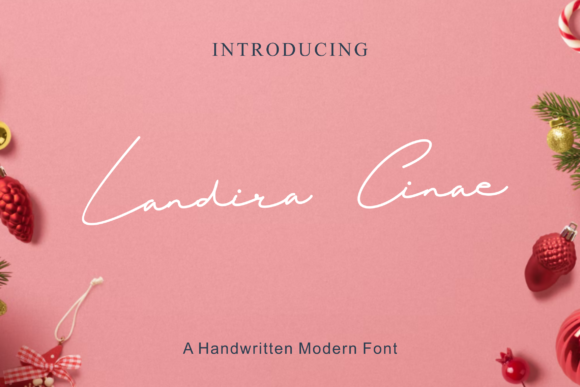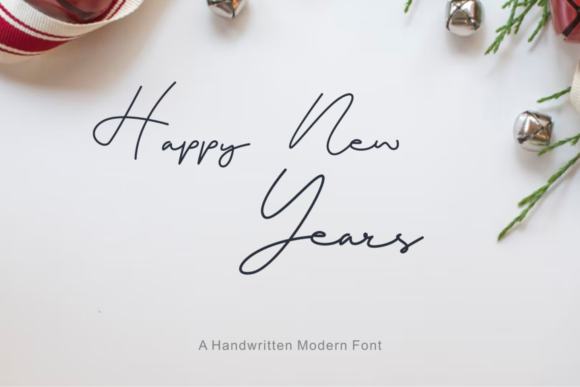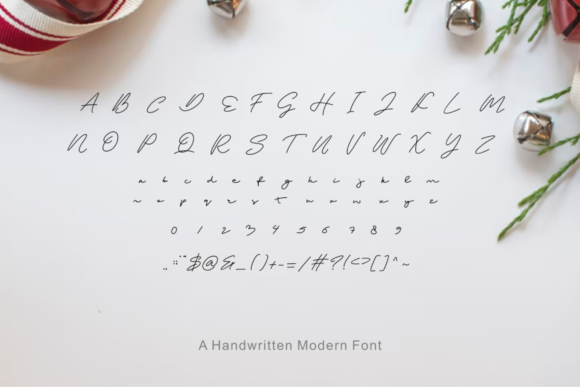
Landira Cinae Font
“Landira Cinae” emerges as a delicate and fashionable script font, radiating an air of sophistication and charm. Tailor-made for branding projects, this font seamlessly elevates logos, t-shirt designs, creative products, and beyond. Its versatility knows no bounds, ensuring that it exudes an extraordinary aura across a wide range of contexts.
Visualize “Landira Cinae” as an artist’s brush that delicately strokes your designs with finesse and elegance. Its intricate lines and stylish curves add a touch of luxury, transforming your projects into visual masterpieces that captivate the eye. As you weave this font into your creations, you’ll embark on a journey where your concepts evolve into captivating visual narratives.
Beyond its visual allure, “Landira Cinae” encapsulates an essence of artistic expression. Its script nature imparts a unique charm, turning your designs into more than just visuals – they become authentic reflections of sophistication. Each character contributes to the intricate tapestry of your creative vision.
“Landira Cinae” stands as an indispensable tool in your design toolkit. Its adaptability ensures seamless harmony with various styles, themes, and intentions. Whether you’re crafting an unforgettable logo, adorning t-shirts with a touch of elegance, or enhancing the allure of creative products, this font enhances the resonance of your message.
In a world where design communicates eloquently, “Landira Cinae” becomes your means to craft designs that resonate deeply and leave an indelible mark. Let its delicate strokes be the artistic flourishes that elevate your creations, infusing them with a touch of script sophistication. Embrace the fashionable allure of “Landira Cinae” and watch as it transforms your projects into captivating showcases of refined creativity, resonating with all who engage with them.